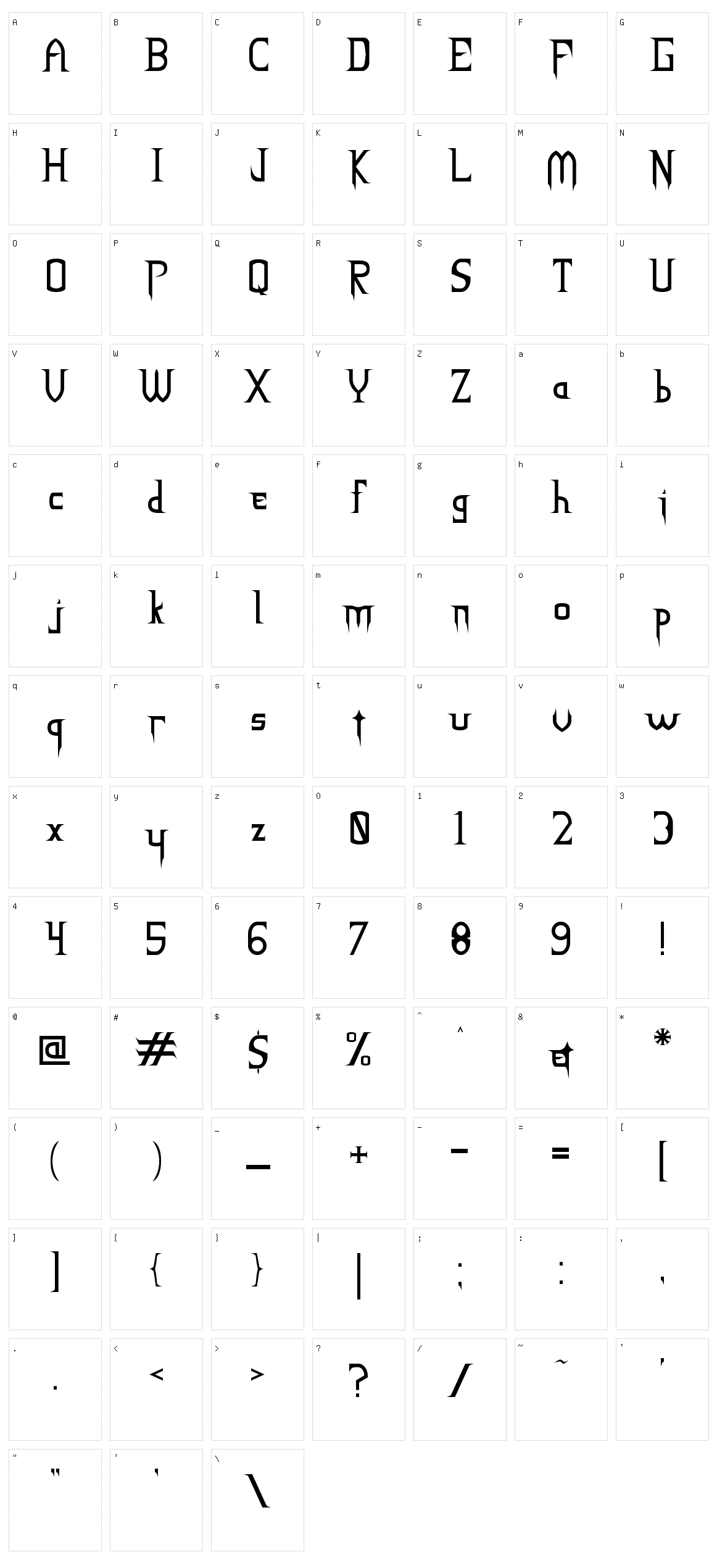
The free font Neck Romancer is carefully designed by Michael W. Moss, showcasing a thoughtful balance of creativity and usability and falls under the Horror font style. When you download the ZIP file, it contains only 1060.26 KB of font files, making it lightweight and quick to download. Please review the license details below to understand permitted usage and distribution rights. If license information is not available, we recommend using this font for personal projects only or contacting the author directly for commercial usage permissions.
NECK ROMANCER Regular
Designed by Michael W. Moss